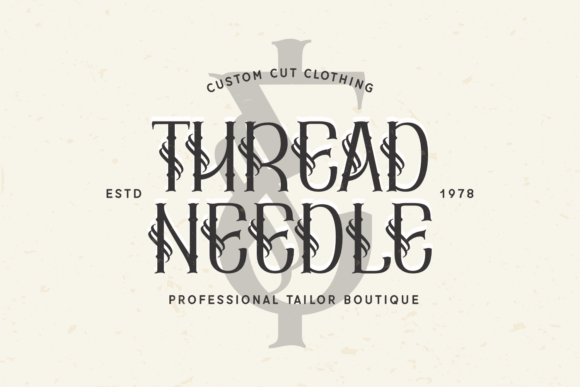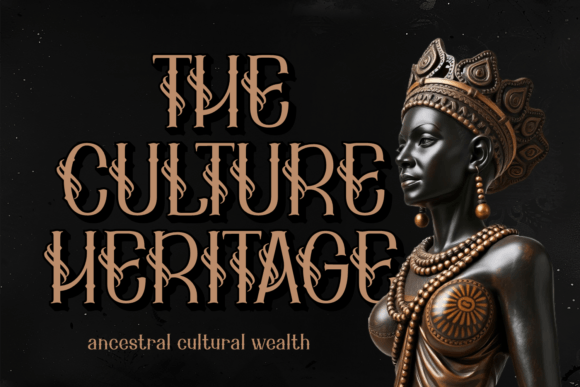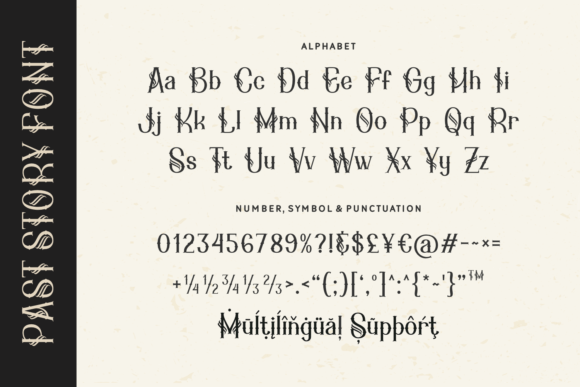
Introduction to Past Story Font
As a designer, there’s nothing quite like the thrill of bringing a new project to life. You’ve got a blank canvas, a spark of inspiration, and a vision to share with the world. But sometimes, it’s the smallest details that can make all the difference. That’s where fonts like Past Story Font come in – a decorative blackletter typeface that adds character to any design.
With its high-quality design and transparent background, Past Story Font is a valuable resource for designers looking to elevate their creative projects. Whether you’re working on apparel, merchandise, or promotional materials, this font is sure to make your design stand out. And the best part? It’s available for free download, making it a must-have in any designer’s toolkit.
Key Features of Past Story Font
- High-quality, unique font design with a nostalgic feel, perfect for creative projects.
- Transparent background, allowing for seamless integration with any design or image.
- Perfect for storytelling, vintage-inspired designs, and other creative projects that require a unique, high-quality font.
Honest Review: Past Story Font
I recently stumbled upon the Past Story Font, and I must say it’s been a game-changer for my creative projects. As a designer, I’m always on the lookout for high-quality fonts that can elevate my designs and help me convey the message effectively.
One of the standout features of the Past Story Font is its transparent background, which makes it incredibly versatile and easy to work with. I can use it as a background font, overlay it on an image, or even use it as a decorative element in my designs.
⚠️ Limitations: While the Past Story Font is an excellent addition to any designer’s toolkit, it may not be suitable for all types of projects, particularly those that require a more formal or traditional font.
Overall, I’m thoroughly impressed with the Past Story Font, and I would highly recommend it to anyone looking to add some creativity and flair to their designs.
To get the most out of the Past Story Font, experiment with different font sizes, colors, and styles. This font is particularly useful for creating a nostalgic or vintage feel in your designs. Some common use cases include: